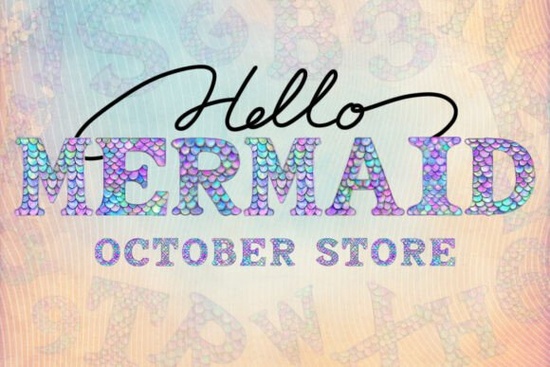
The Mermaid Font is a delightful addition to any designer’s toolkit, especially for those who love whimsical and imaginative typography. Whether you're working on a personal project or creating something for clients, this font brings a sense of magic and charm that's hard to match. With 36 unique characters, including letters and numbers, it offers versatility for everything from invitations to branding materials. Its style evokes fairy tales and undersea adventures, making it ideal for themes centered around fantasy, nature, or storytelling.
What Makes the Mermaid Font Unique?
The Mermaid Font isn’t just about its appearance it’s about the feeling it evokes. The design is soft, flowing, and slightly whimsical, giving it an almost hand-drawn quality. This makes it perfect for creative projects that aim to capture a sense of wonder or nostalgia. The font works well in both digital and print formats, ensuring that your designs look great no matter where they’re used.
One of the key features of the Mermaid Font is its attention to detail. Each character has a distinct shape and curve, making the entire set feel cohesive yet expressive. This level of craftsmanship is what sets it apart from more generic typefaces. Whether you're designing a logo, a greeting card, or a social media graphic, this font can help you stand out from the crowd.
How to Use the Mermaid Font in Your Projects
There are countless ways to incorporate the Mermaid Font into your work. For example, it’s ideal for creating custom wedding invitations, birthday cards, or even book covers that have a magical theme. It also works well for branding elements like logos, banners, or packaging designs. The font’s playful style can add a fresh and engaging look to any project that needs a touch of creativity.
If you're a print-on-demand seller, this font could be a valuable asset for creating unique products such as t-shirts, mugs, or stickers. Its visual appeal makes it easy to turn into eye-catching designs that customers will love. For small businesses, using the Mermaid Font can help create a brand identity that feels fun and approachable.
- Mermaid Font – The main focus of this article, ideal for whimsical designs.
When choosing a font, consider the tone and purpose of your project. The Mermaid Font is best suited for designs that aim to evoke joy, imagination, and a sense of wonder. It’s also a good idea to test different fonts in your workflow to see which ones complement your existing design style.
As you explore the world of typography, remember that the right font can make a big difference in how your message is received. Whether you're a designer, crafter, or small business owner, the Mermaid Font offers a unique and appealing option for your creative needs.
Before finalizing your design, take a moment to review your work and ensure that the font enhances rather than distracts from your overall vision. With the Mermaid Font, you’ll have a tool that adds both style and personality to your projects.